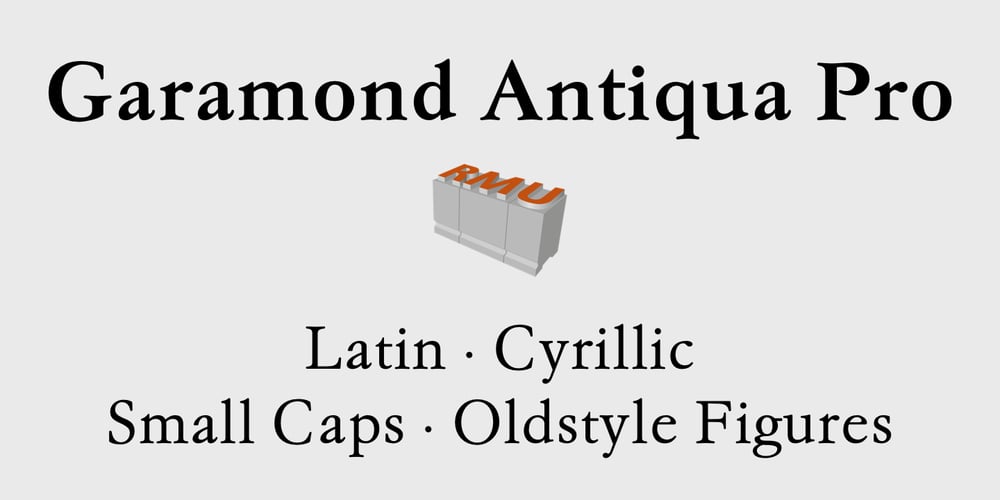
Garamond Antiqua Pro
Garamond Antiqua Pro font
Garamond Antiqua Pro Font Family was designed by Ralph M. Unger and published by RMU. Garamond Antiqua Pro contains 3 styles and family package options. A font classic as a RMU redesign – a small yet mighty family with a West and Central European character set plus Cyrillic. All three styles include small caps and oldstyle figures.